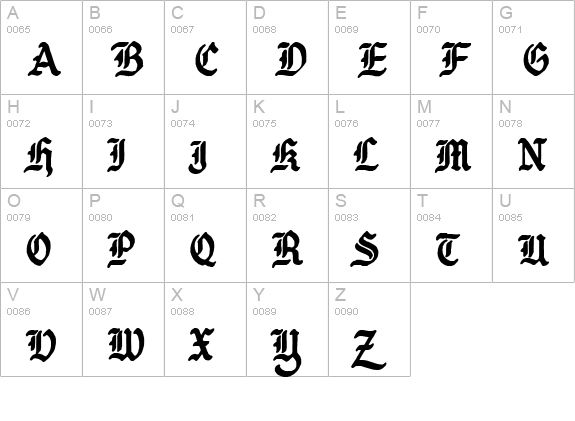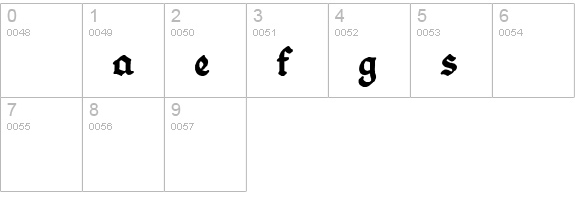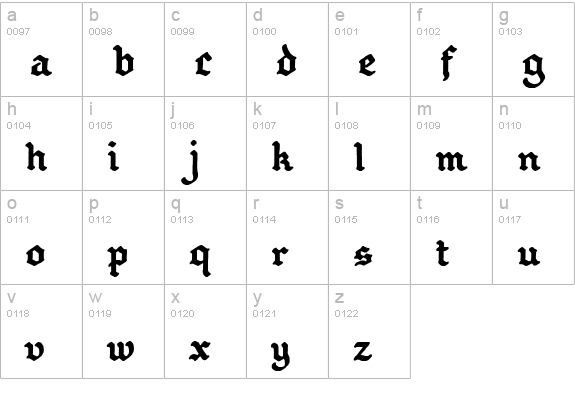
GothBallCrap Bold is a strong, high-contrast variant in the GothBallCrap typeface family \xE2\x80\x94 well suited to headlines, attention-grabbing titles, and strong calls-to-action.
GothBallCrap Bold font is a bold and edgy typeface that perfectly captures the essence of gothic design. Its sharp and intricate details make it ideal for creating eye-catching headlines, posters, and branding materials. With its unique and expressive style, GothBallCrap Bold font adds a touch of mystery and drama to any design project. The best part? GothBallCrap Bold font is available for free download at FontsMarket.com. You can easily add this striking font to your collection and use it in your creative projects without any cost. Don't miss out on this opportunity to enhance your designs with the bold and captivating GothBallCrap Bold font. Download it now and unleash your creativity!